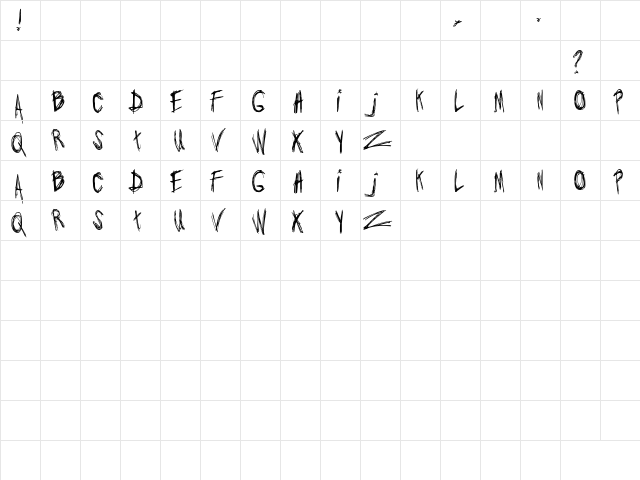
Jo_wrote_a_lovesong Regular
Design Context for Jo_wrote_a_lovesong Typeface
Jo_wrote_a_lovesong is a composed and adaptable typeface that performs quietly and consistently across a wide range of design contexts.